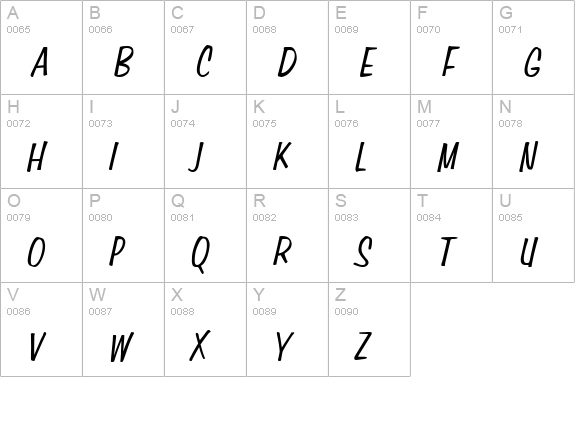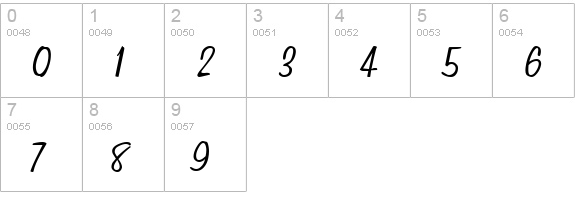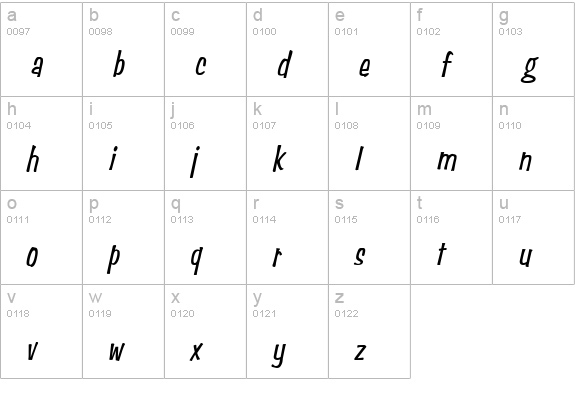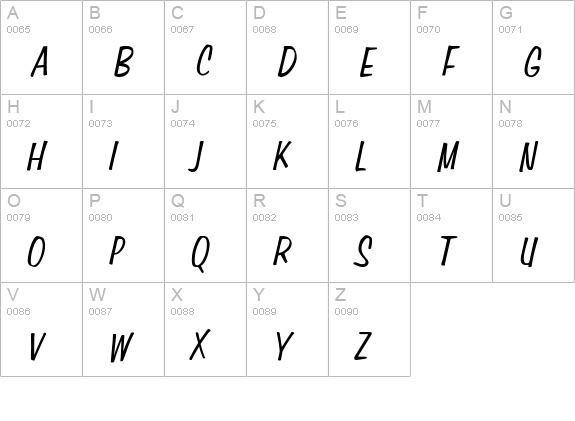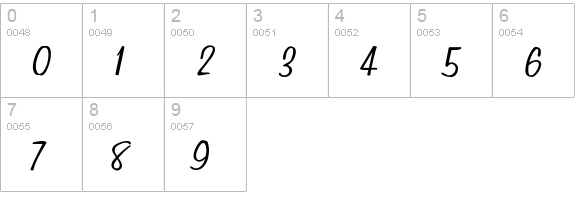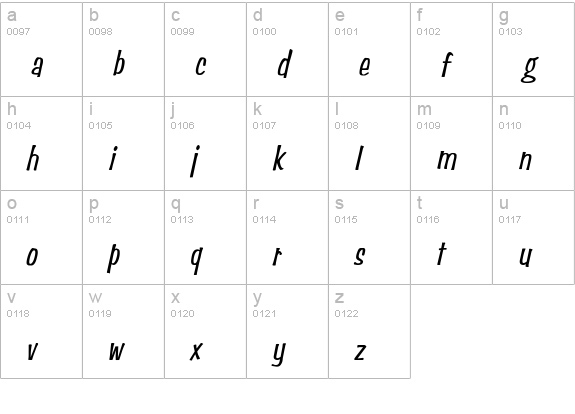
Simpson Condensed Italic is a distinctive, condensed-width, italic variant in the Simpson typeface family \xE2\x80\x94 well suited to design and typography projects.
The Simpson Condensed Italic font is a stylish and modern typeface that effortlessly combines elegance with readability. Its sleek and narrow design adds a touch of sophistication to any project, making it perfect for headlines, logos, and branding materials. The italicized slant of the letters adds a sense of dynamism and movement to your text, giving it a unique and eye-catching appeal. With its clean and crisp lines, Simpson Condensed Italic is highly legible even at smaller sizes, making it suitable for both print and digital media. The condensed nature of the font allows for more content to fit within limited space, making it an ideal choice for projects where efficiency is key. One of the best things about Simpson Condensed Italic is that it is available for free download at FontsMarket.com. This means that you can easily access and use this font in your designs without any cost. Whether you are a professional designer or a hobbyist, this font offers you the opportunity to enhance your creations with a high-quality and visually appealing typeface. So why wait? Give your designs a touch of elegance and modernity with the Simpson Condensed Italic font. Download it for free at FontsMarket.com and elevate your typography game to new heights.